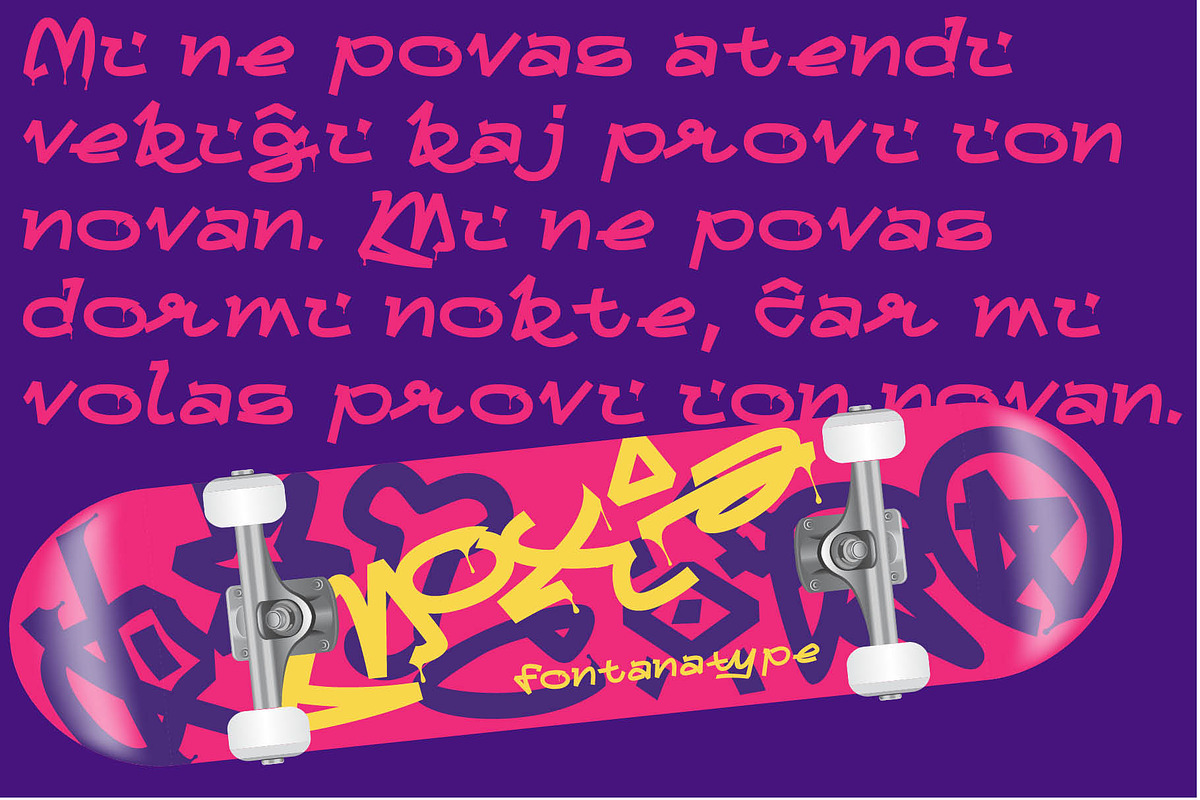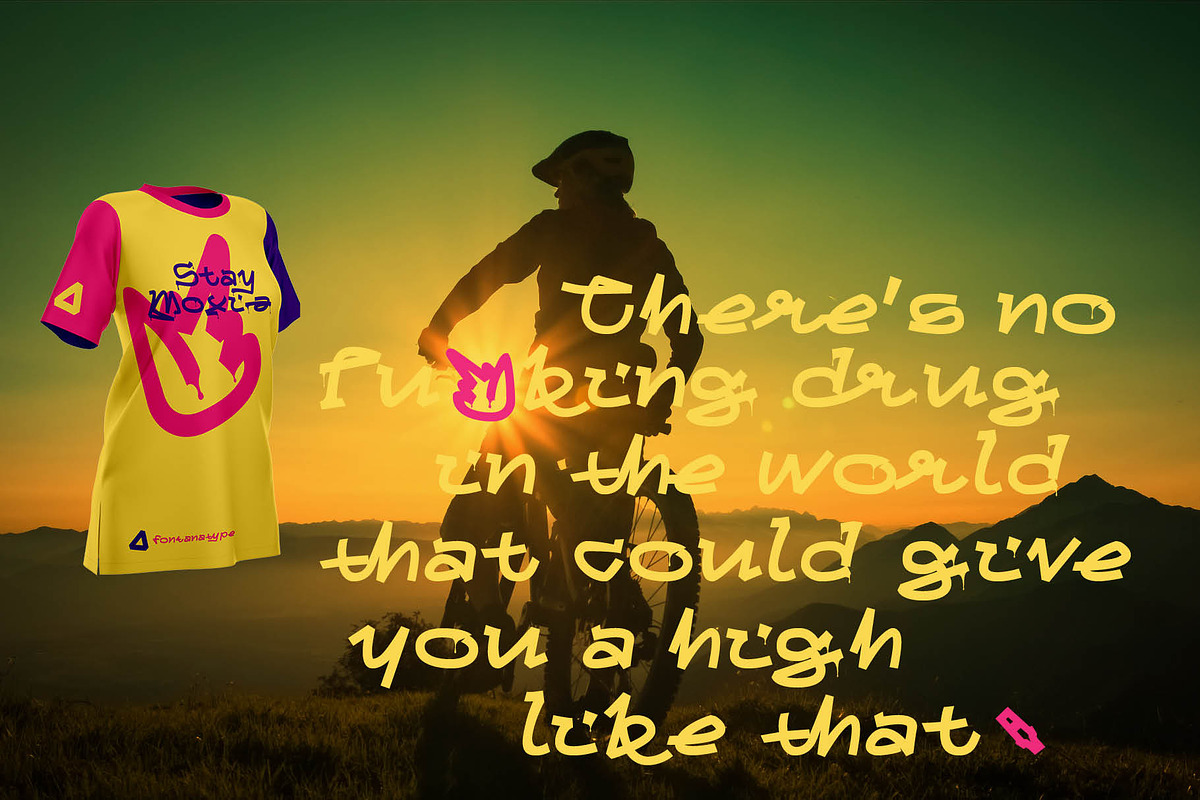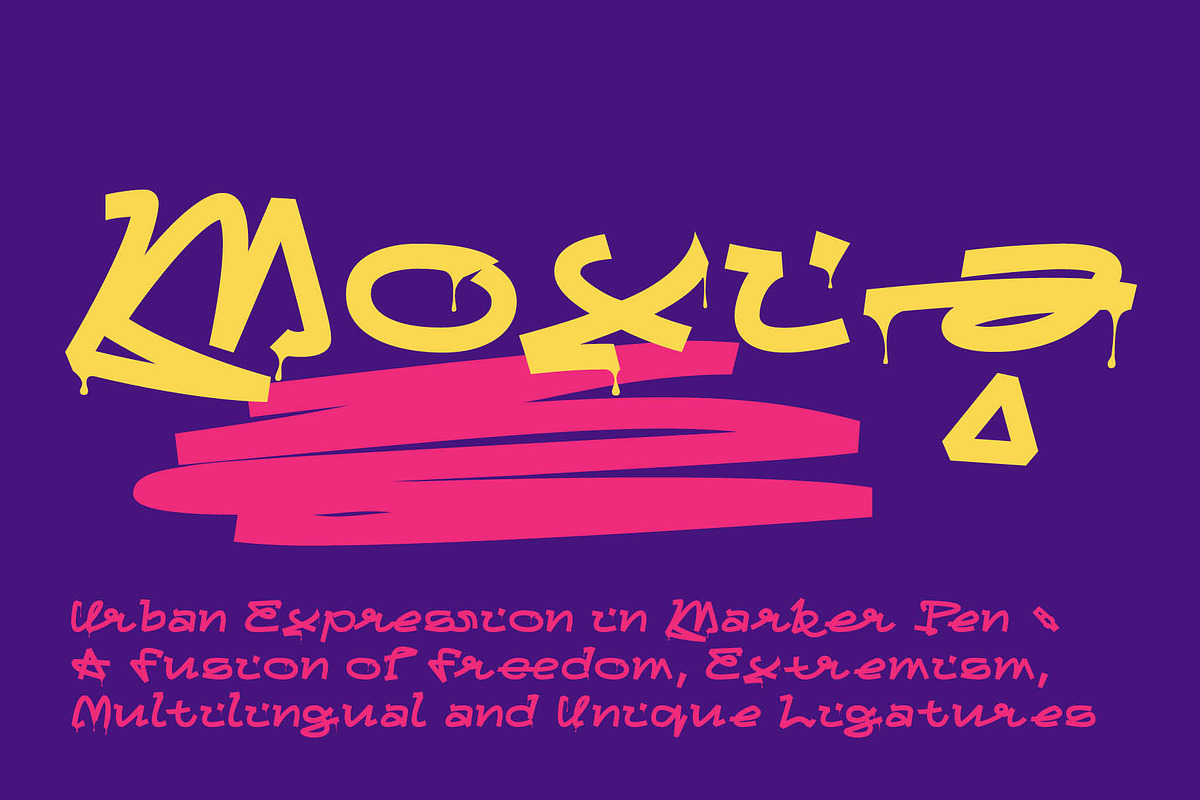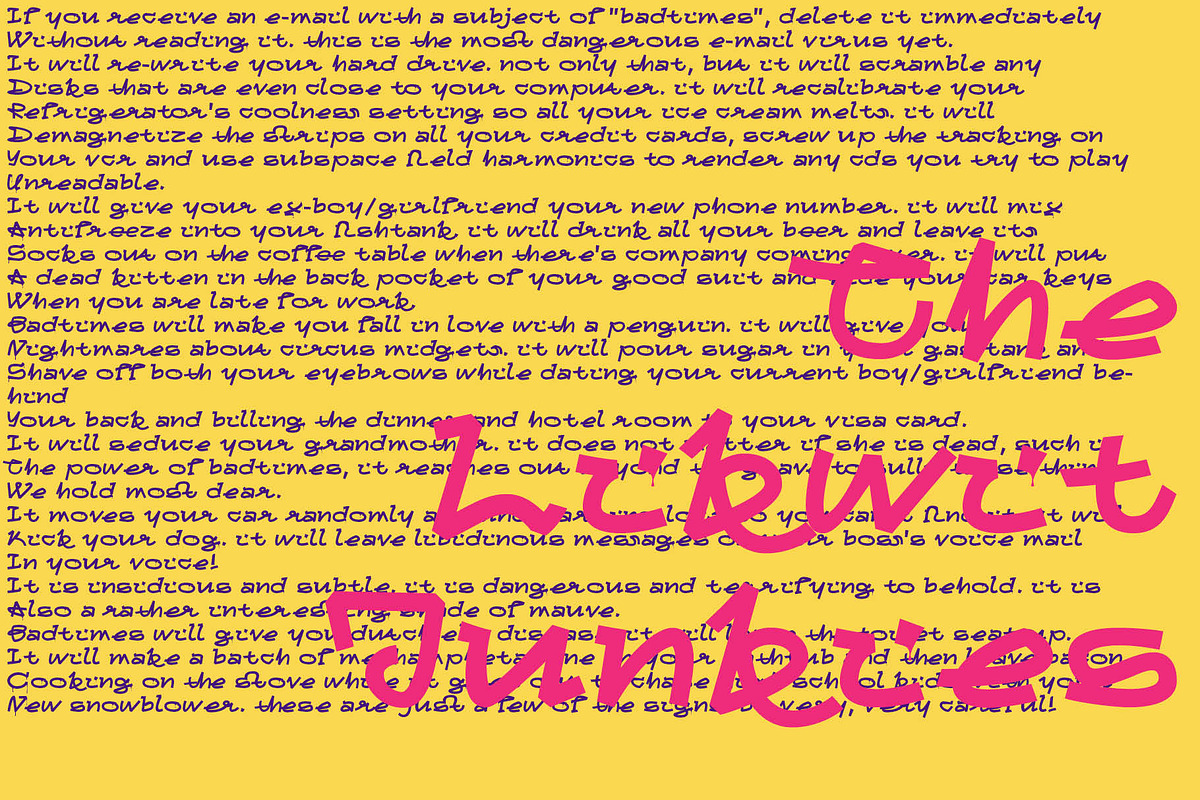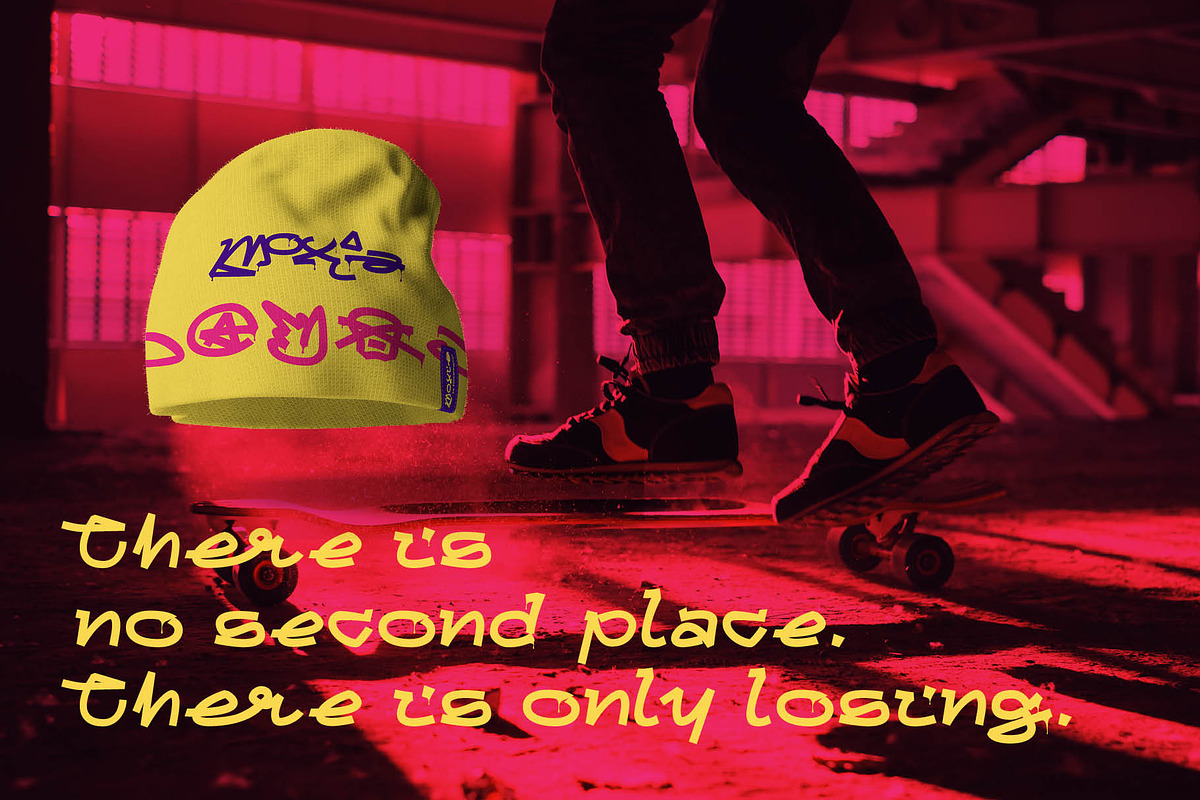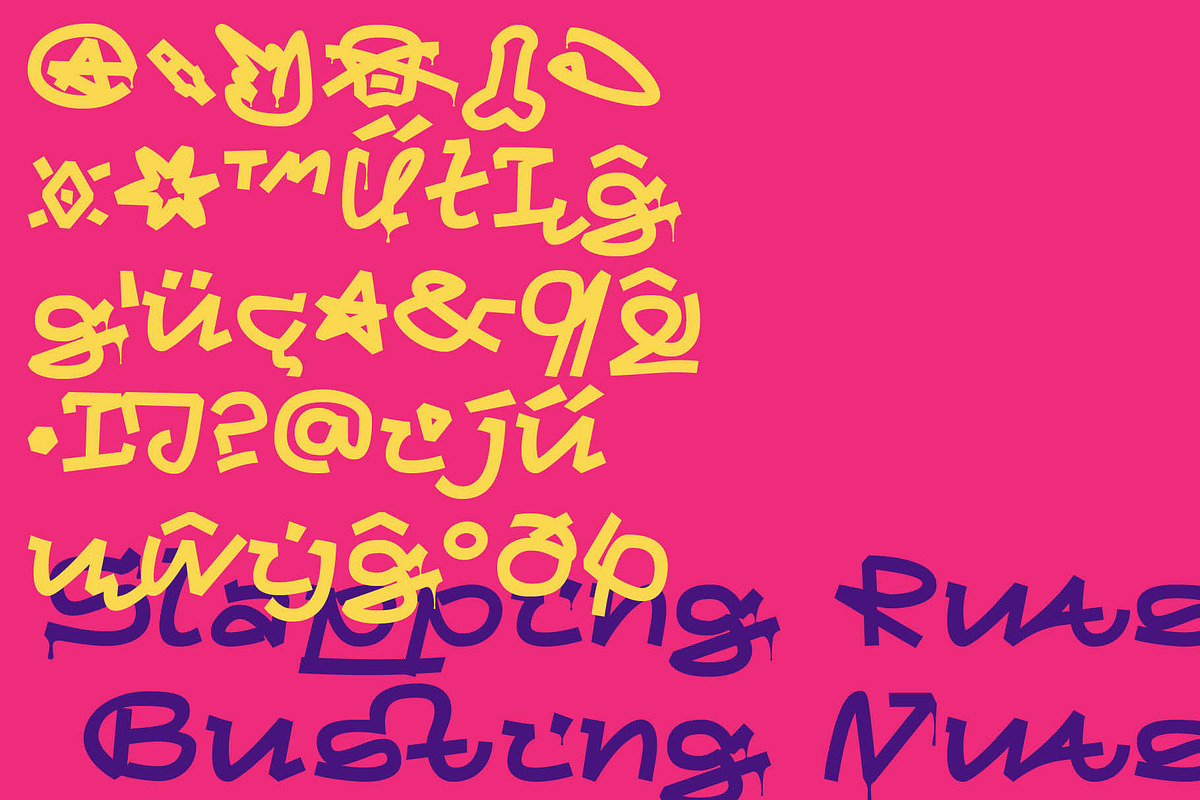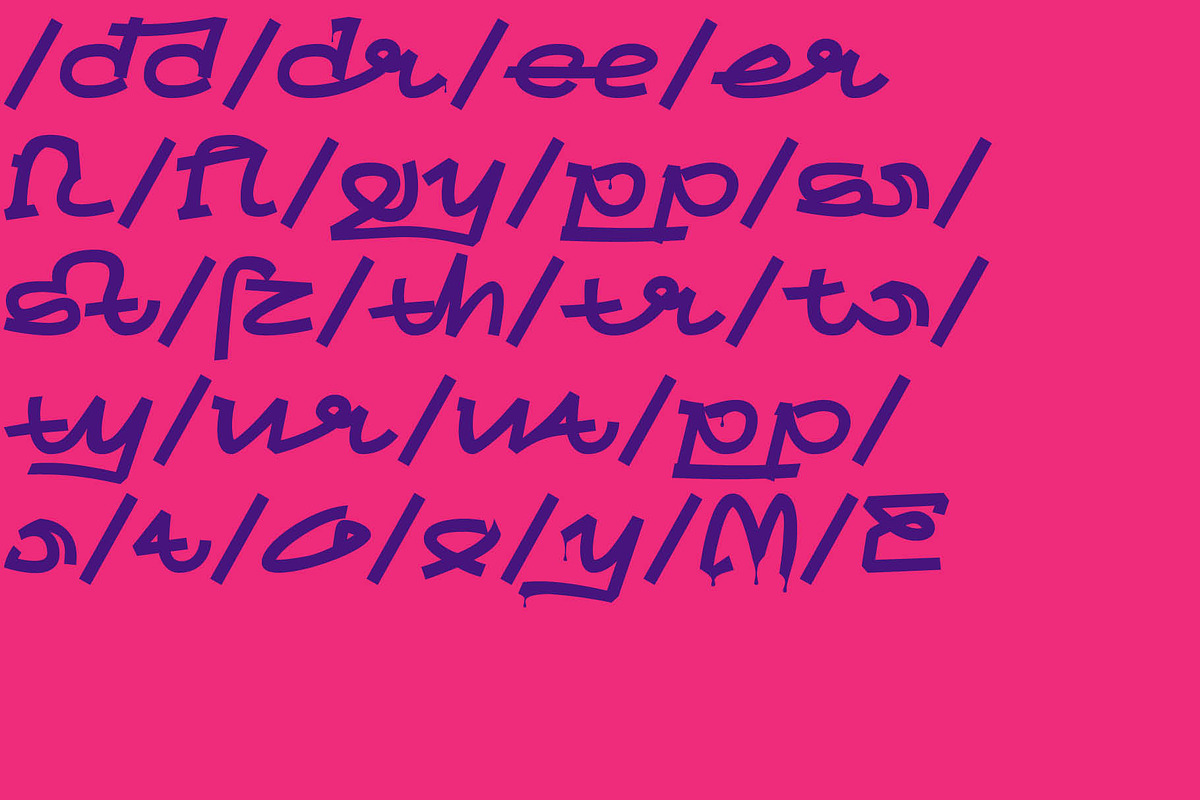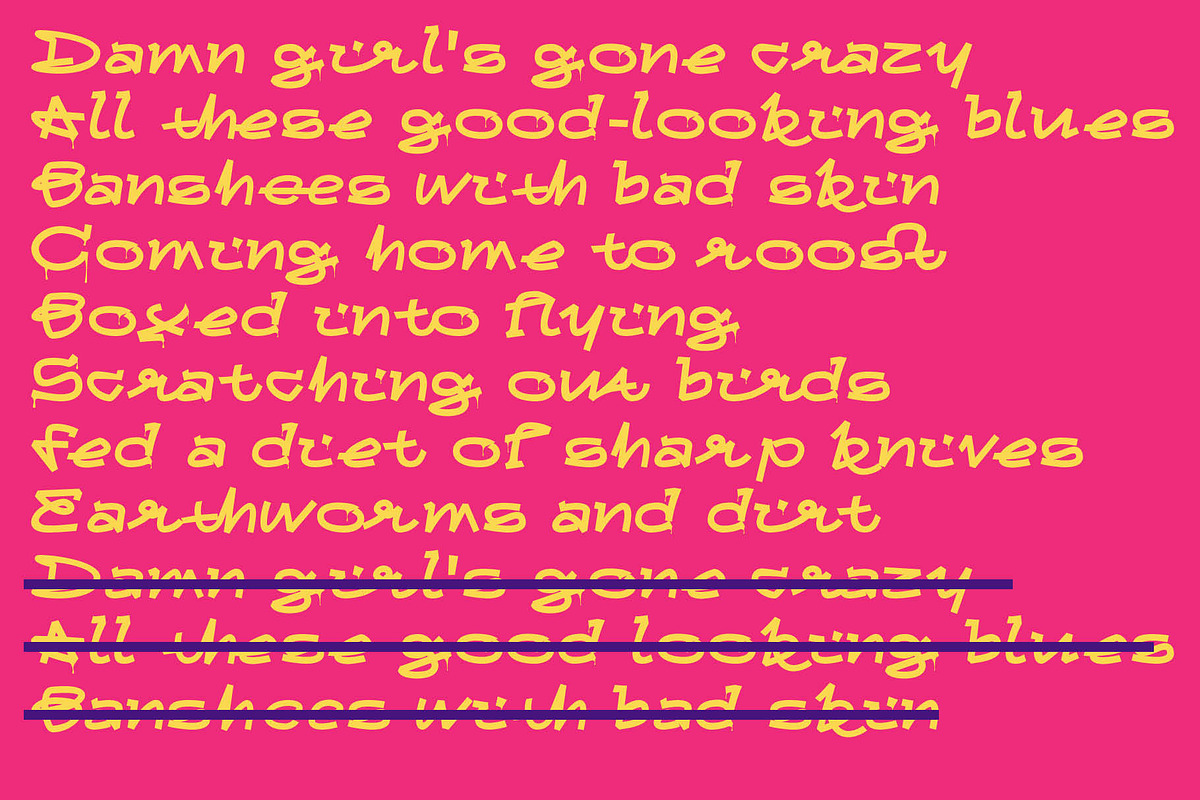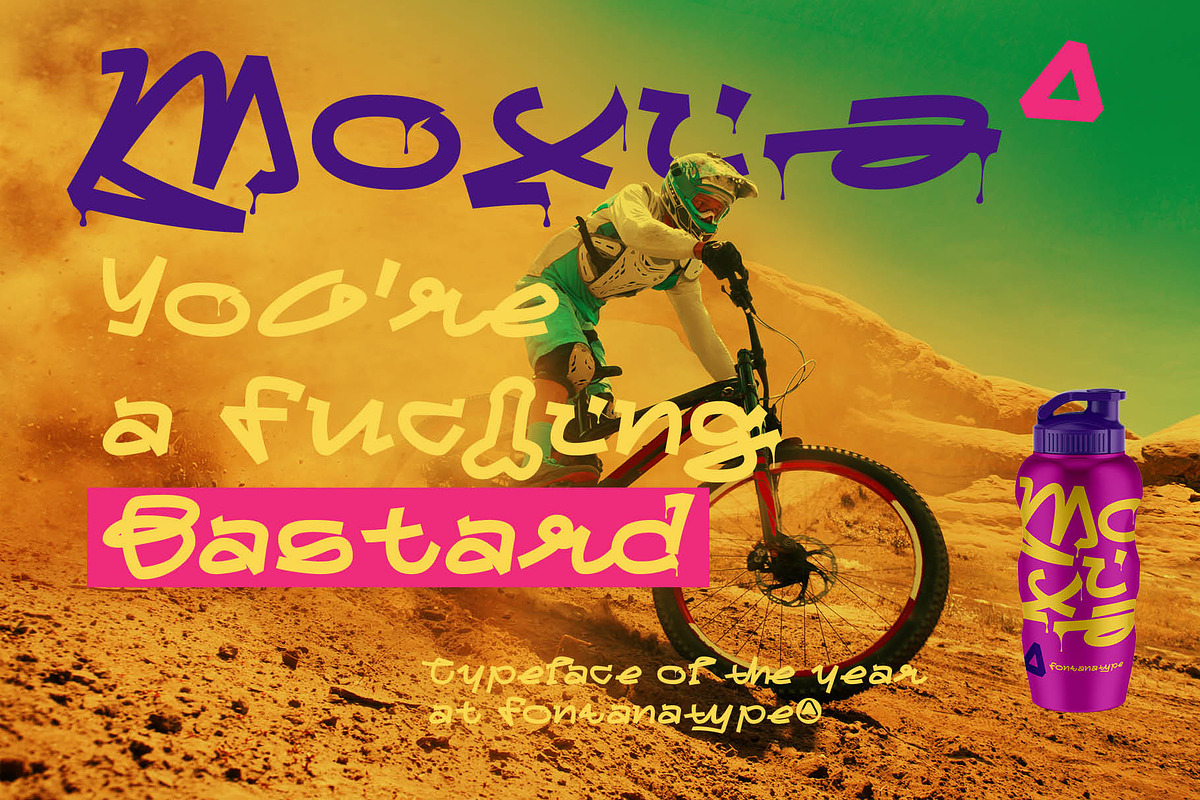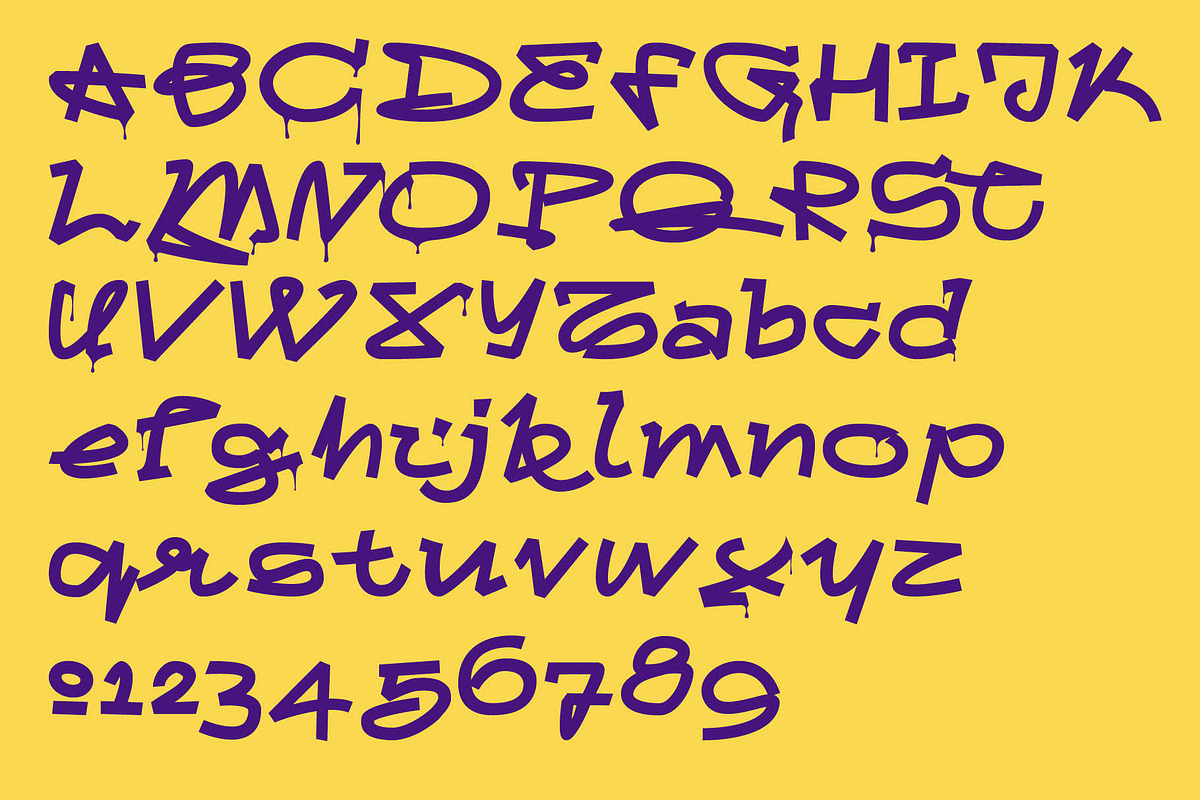
Moxie
Moxie font, a captivating typeface for designers, immerses users in the vibrant world of street art. Its marker pen style exudes a sense of freedom and extremism, capturing the raw energy of urban expression. The font's numerous ligatures enhance the uniqueness of text images, adding an extra layer of visual appeal to design projects.